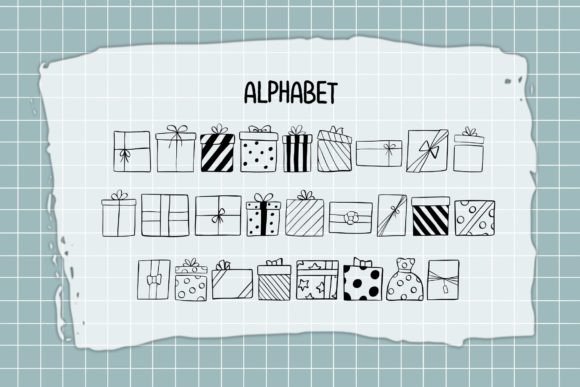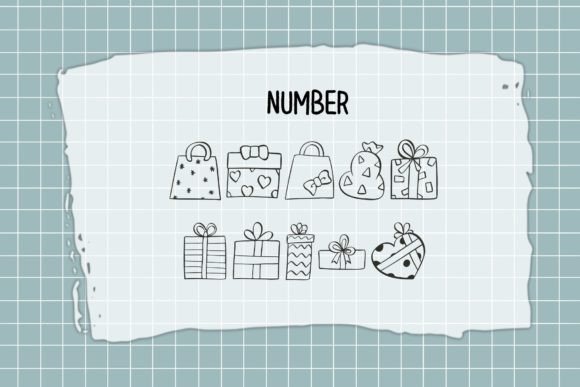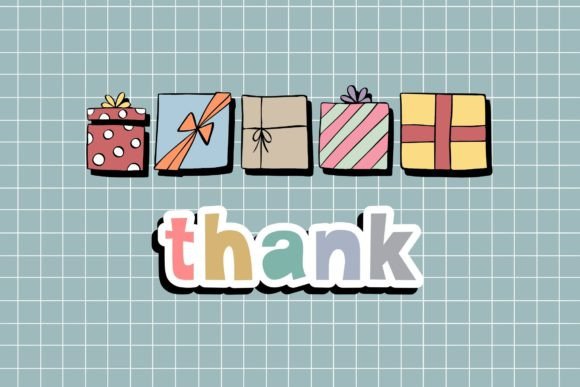
Introduction to Happy Gifts Font
Happy Gifts is a funny dingbats font.
This font is the perfect fit for all of your logos, wall art, signs, cards, art prints, t-shirts, coloring pages, and much more .
Key Features of Happy Gifts Font